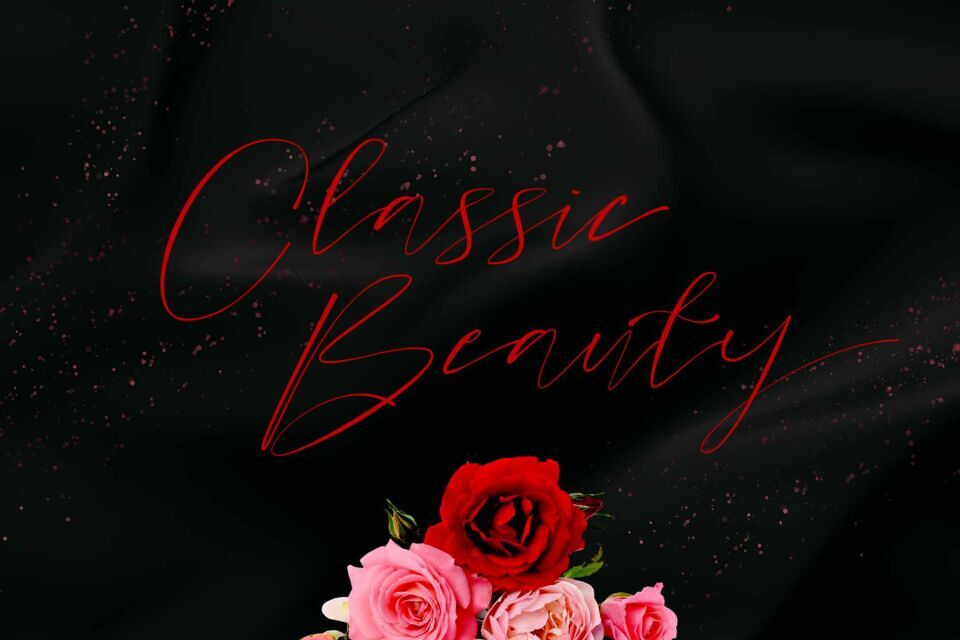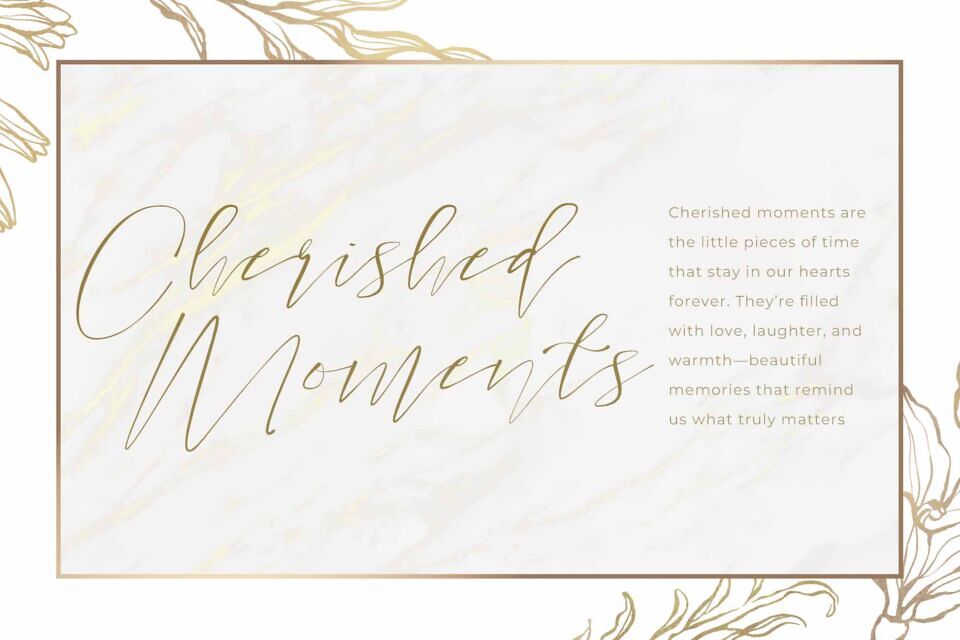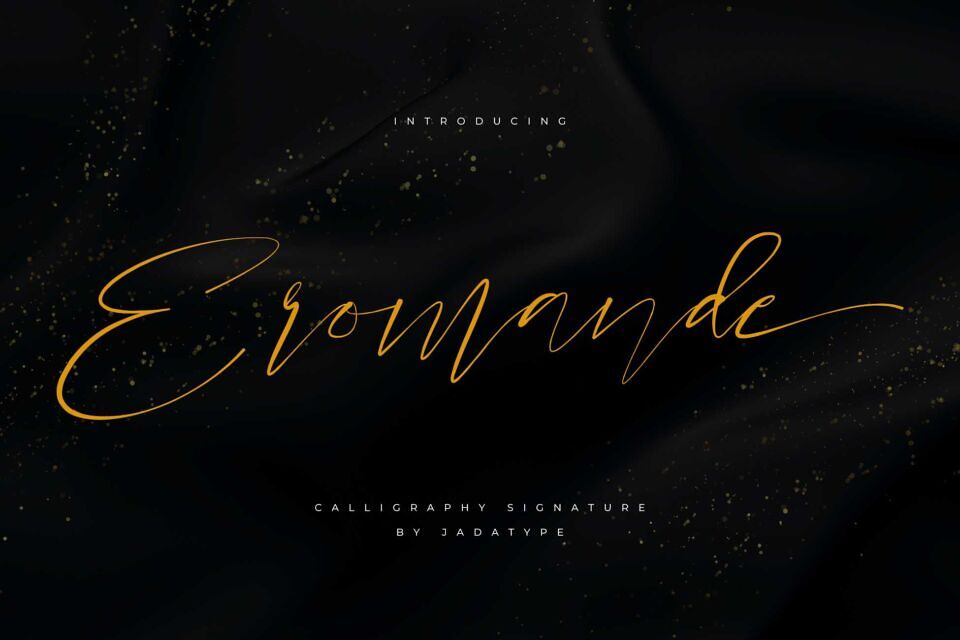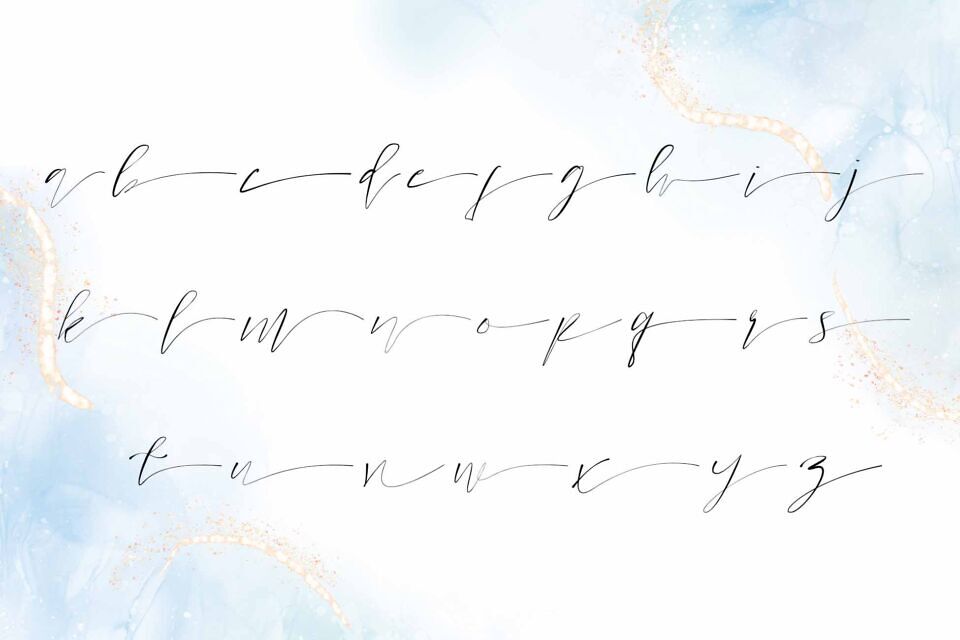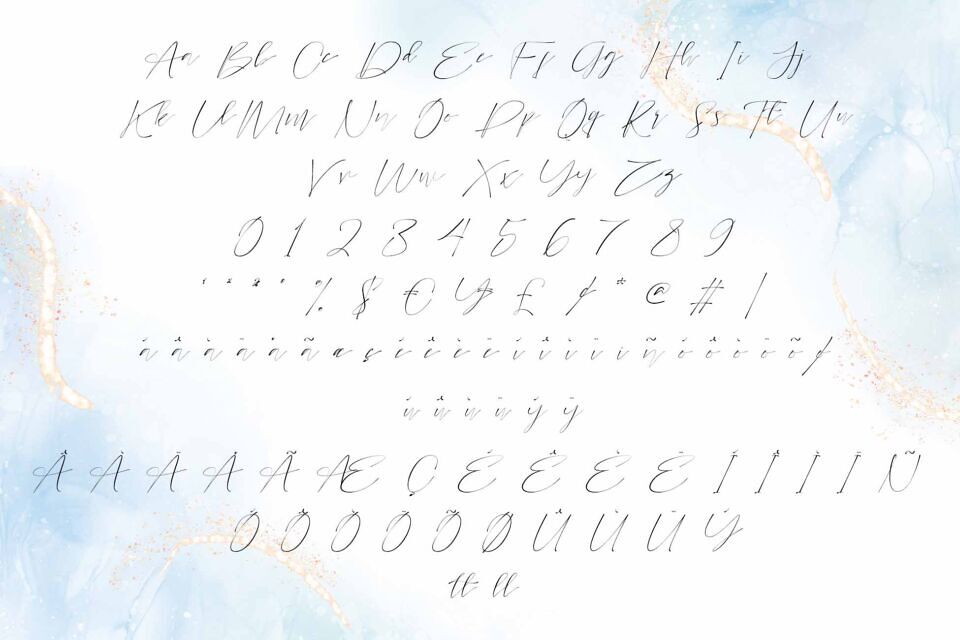
Eromande is a font with a thin calligraphy style. Suitable for branding, logotype, signature, music cover, social media, products, and so on. contains standard English letters, numbers, alternates, ligatures, punctuation, and several accents that support multilingualism.